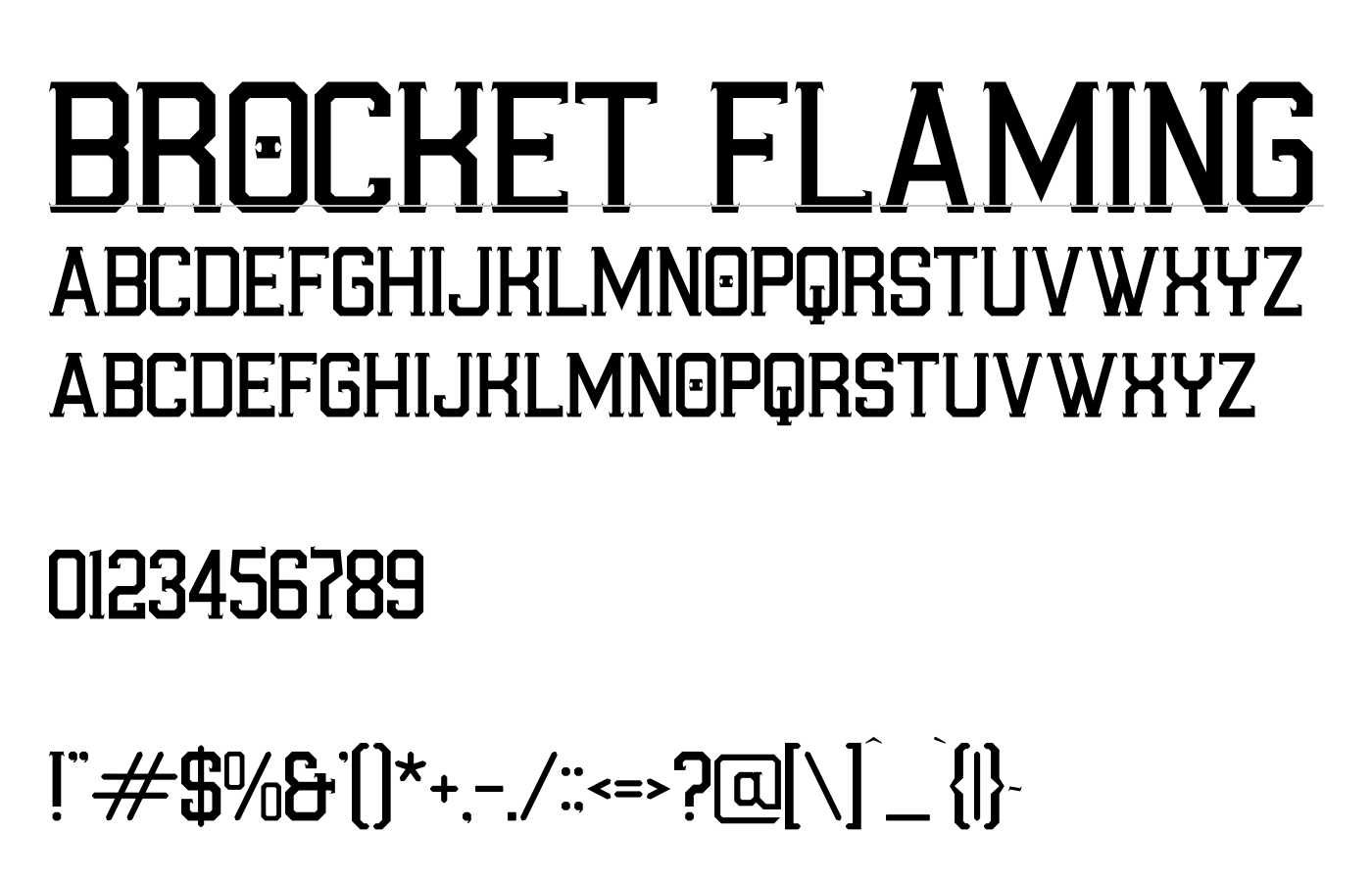
Brocket Flaming is a bold, condensed slab serif font with a strong, industrial feel, characterized by its sharp, angular serifs and uniform stroke weight. Its tall letterforms and geometric shapes give it a vintage yet commanding presence, making it ideal for eye-catching headlines, logos, and posters that need a striking, rugged aesthetic. This font works particularly well in contexts where a sense of strength and durability is desired, such as branding for outdoor gear, sports teams, or retro-inspired designs.
BROCKET FLAMING Font
About BROCKET FLAMING Font